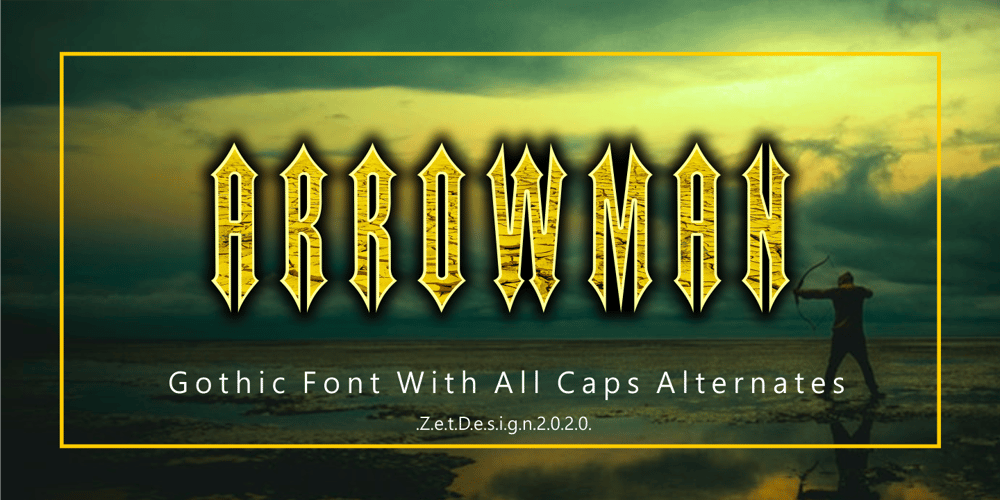
Arrowman Font Family was designed by Ahmad Zulfikar Ali and published by ZetDesign. Arrowman contains 3 styles and family package options. Arrowman is a strong and bold decorative font with a Gothic feel. It will surely turn any design project into an eye catcher.